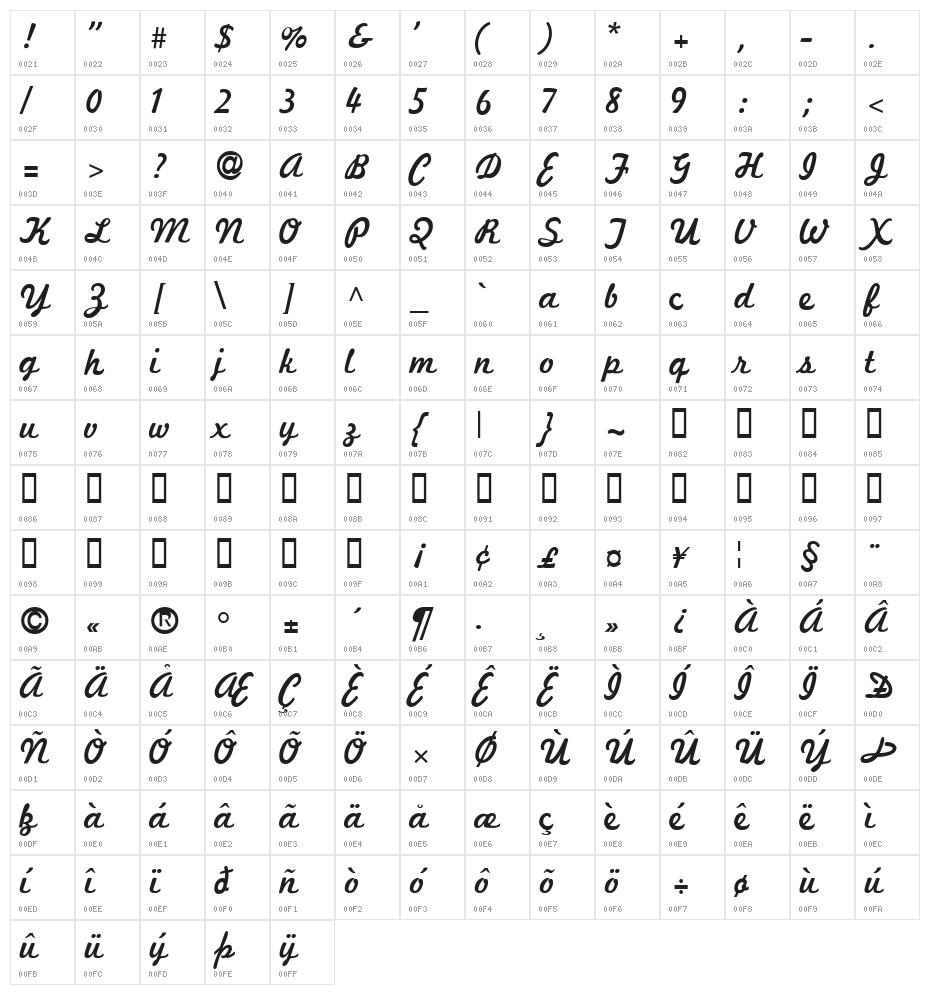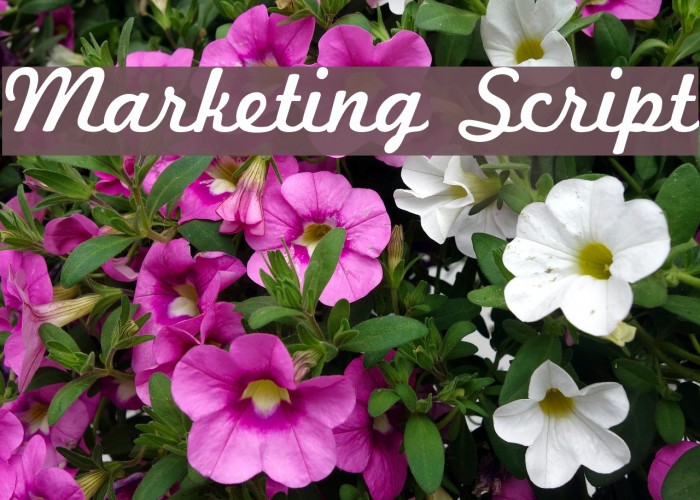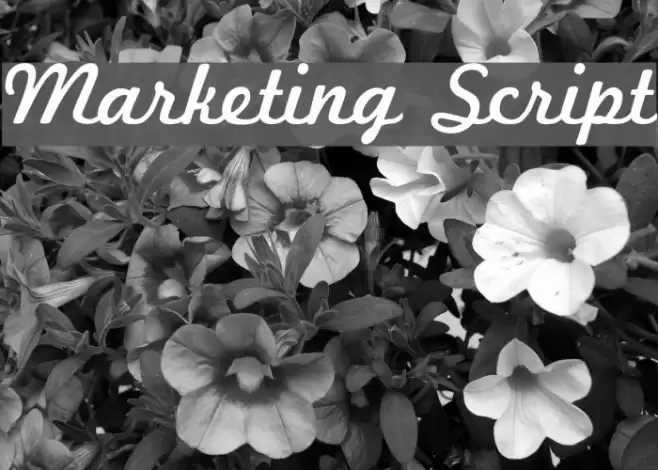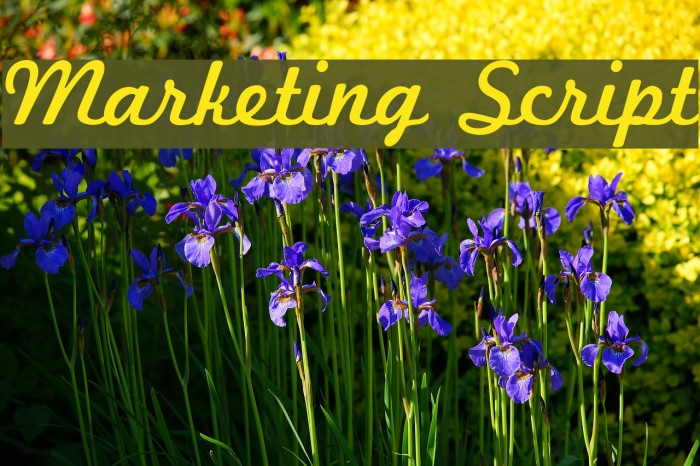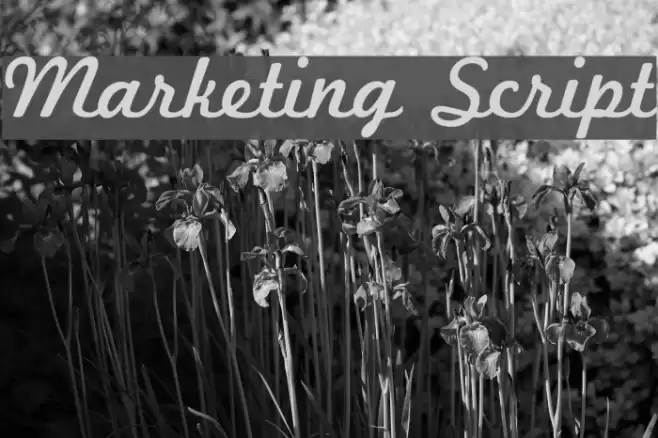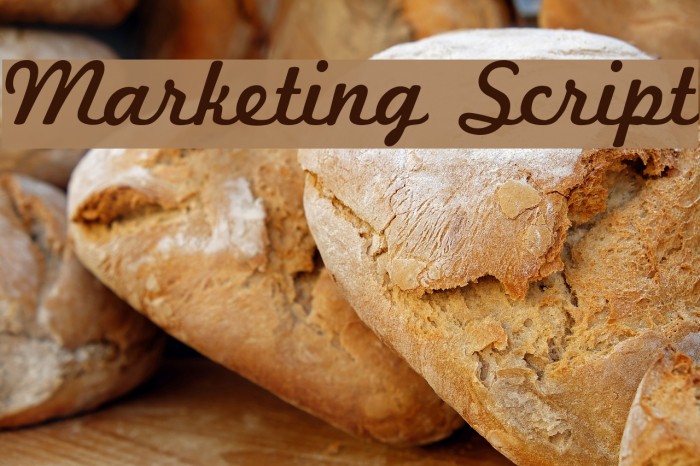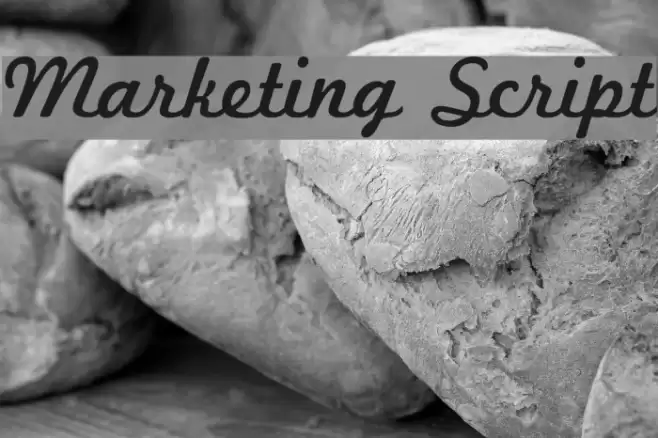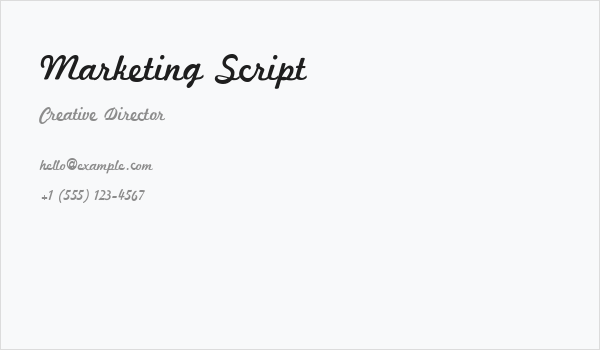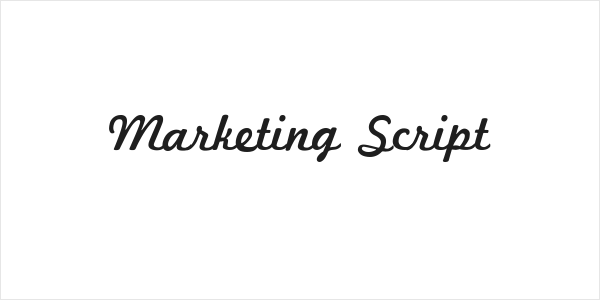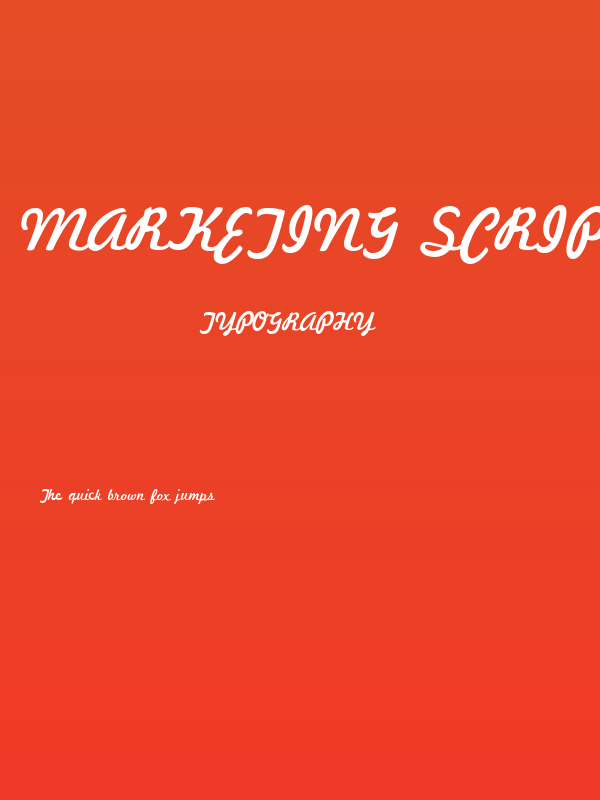
Marketing Script Font
Marketing Script Description
This font exudes a classic script style with smooth, flowing curves and a handwritten aesthetic. The letters are connected, providing a seamless and elegant appearance. The uppercase characters maintain a consistent height, while the lowercase letters have a slight slant, enhancing the cursive feel. The numerals are bold and clear, matching the overall style of the alphabet. Special characters are well-integrated, maintaining the script's fluidity. This font is ideal for projects requiring a personal touch, such as invitations, greeting cards, or branding materials that aim to convey sophistication and warmth.
Overall StyleClassic
Use CaseLogos, Invitations, Greeting Cards
Proposed ProjectsIdeal for invitations, greeting cards, branding materials, and any project requiring a personal, elegant touch.